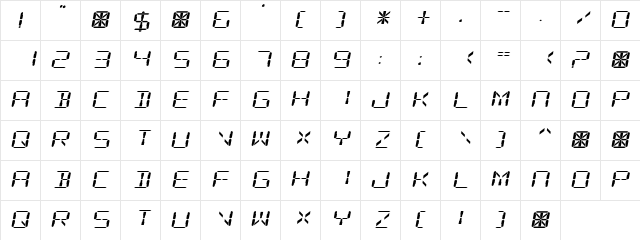
Digital Readout Expanded Regular
Design Context for Digital Readout Expanded Typeface
Digital Readout Expanded has a distinctly futuristic character, with geometric precision and clean angles that feel at home in technology, gaming, and sci-fi contexts.
Pro Tip: Use Digital Readout Expanded in combination with a neutral sans for body text. Let it define the brand voice in headlines while keeping reading comfortable elsewhere.